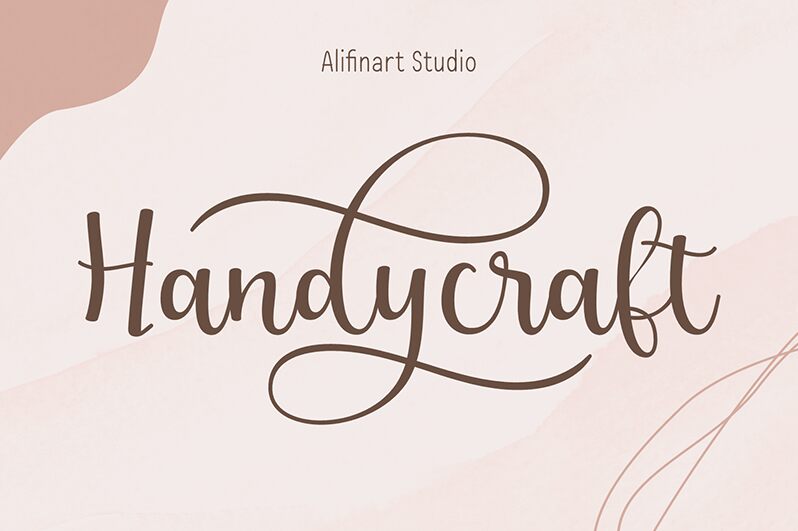
Handycraft font is a cute calligraphy typeface designed by Alif Nuryasin of Alifinart Studio.
Handycraft simplifies elegance into one truly outstanding handwritten font. It maintains its classy calligraphic influences while feeling contemporary and fresh. This versatility will appeal to a wide range of crafty ideas, from letterheads and titles, to stationery.